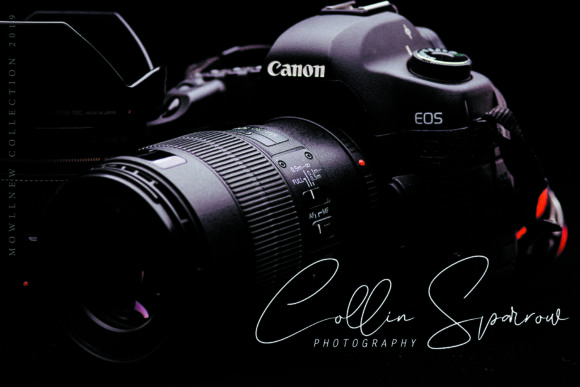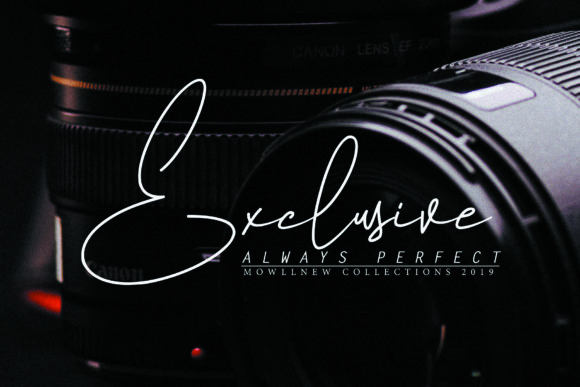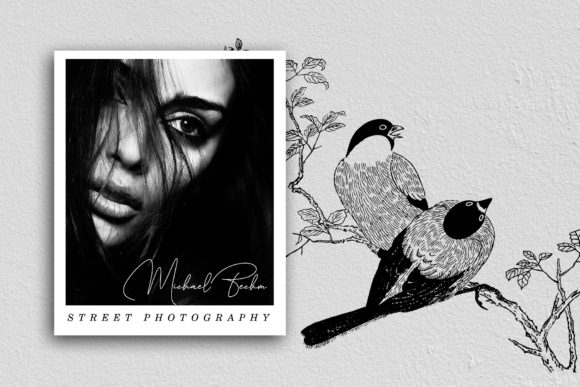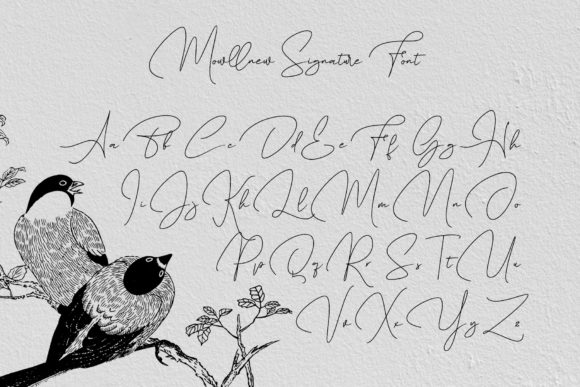
Introduction to Mowllnew Font
Mowllnew is a classy and fresh script font with graceful swashes and bold curves.
Use it to add an authentic touch to any design project .
Key Features of Mowllnew Font